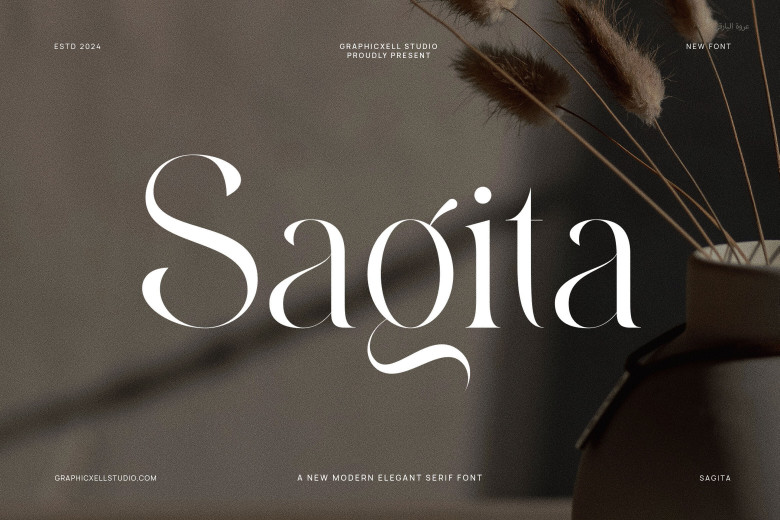
Sagita Font
Sagita is a ligature serif typeface for sophisticated use from our workshop. It has therefore been designed in a very deliberate manner to ensure that it has resonance and the feeling of luxury. The ligatures are what make this typeface different from a simple serif lettering and distinguish it rather than the rest.
Highly appropriate for logos, headlines, titles, and all sorts of the other official forms like invitations, logos, magazines, books, greeting/wedding cards, packaging, fashion, makeup, stationery, covers, novels, labels, or any type of advertising.
Sagita Serif Font